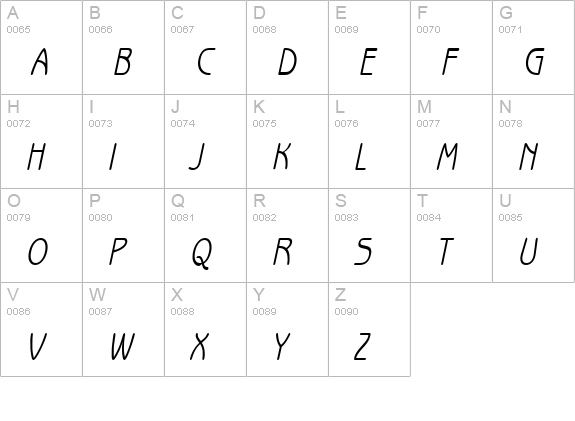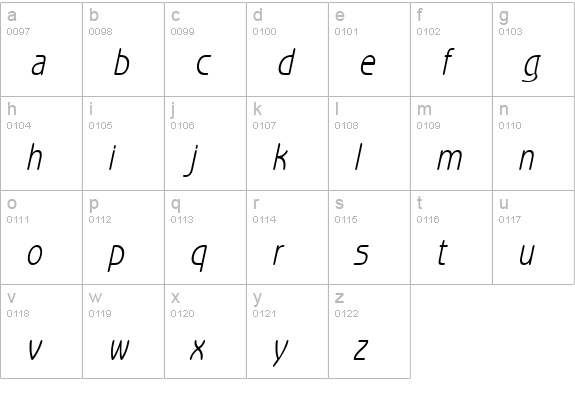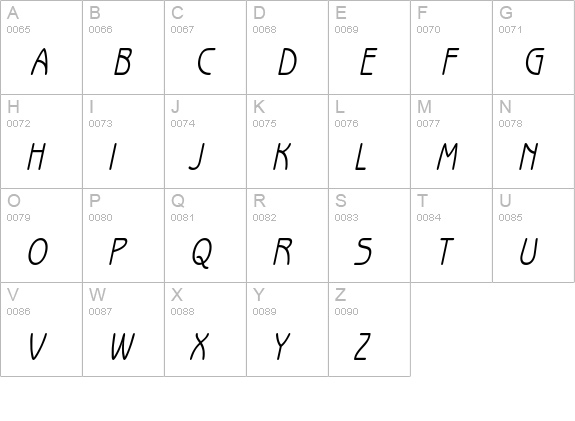
Beagle-Condensed Italic is a distinctive, condensed-width, italic variant in the Beagle typeface family \xE2\x80\x94 well suited to design and typography projects.
The Beagle-Condensed Italic font is a sleek and modern typeface that exudes sophistication and elegance. Its condensed form and stylish italic design make it perfect for adding a touch of flair to any project. The Beagle-Condensed Italic font is ideal for use in branding, logo design, headings, and more. What sets this font apart is not just its striking appearance, but also the fact that it is available for free. That's right, you can download the Beagle-Condensed Italic font for free at FontsMarket.com. With its combination of style and accessibility, this font is a must-have for any designer looking to make a statement.